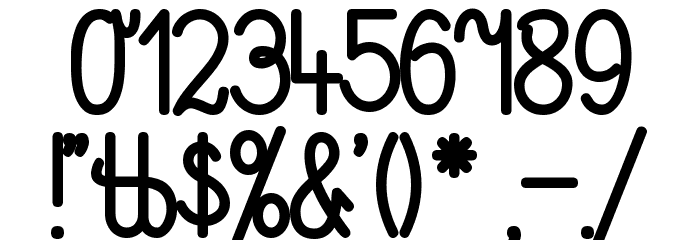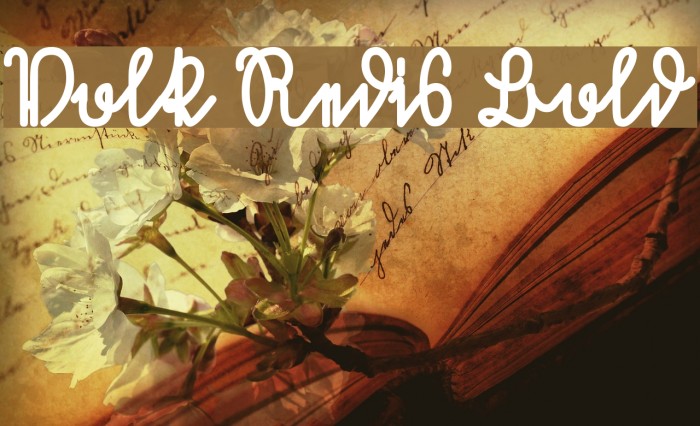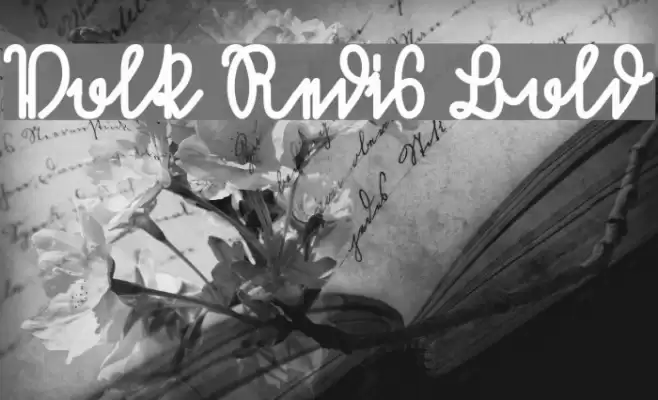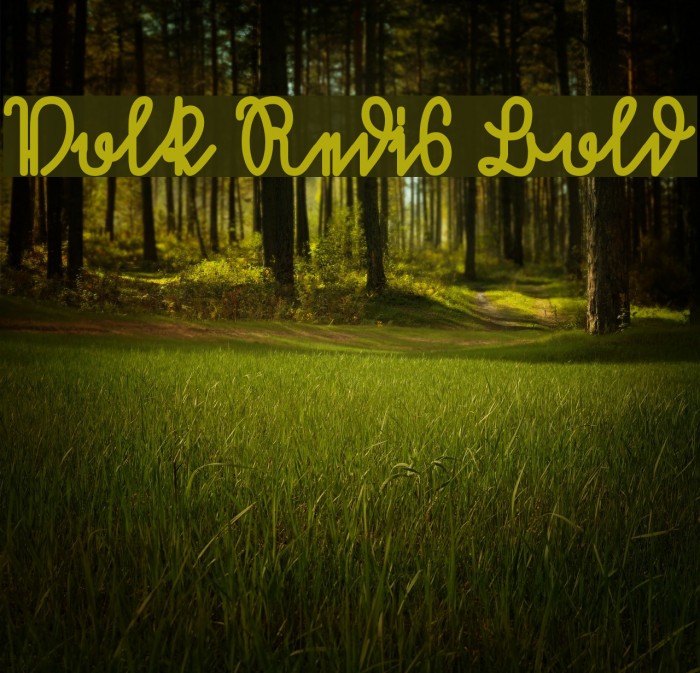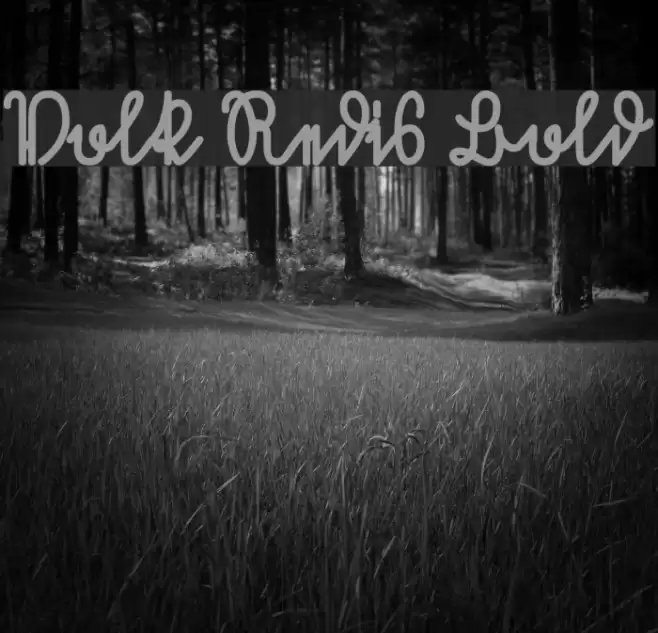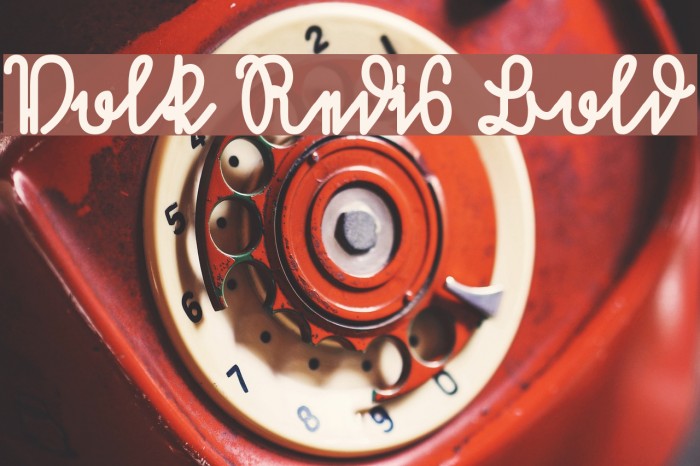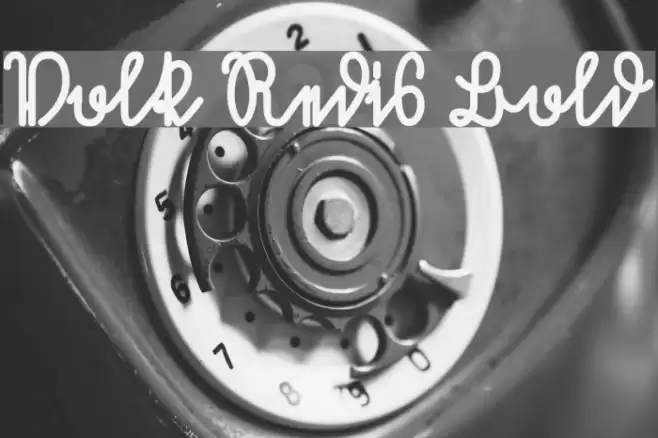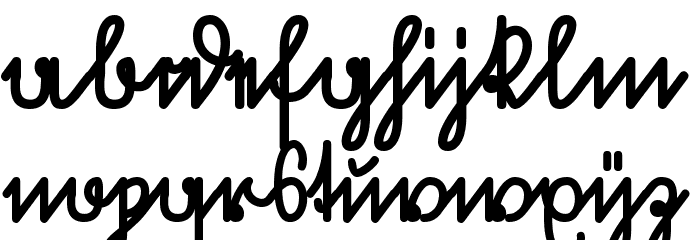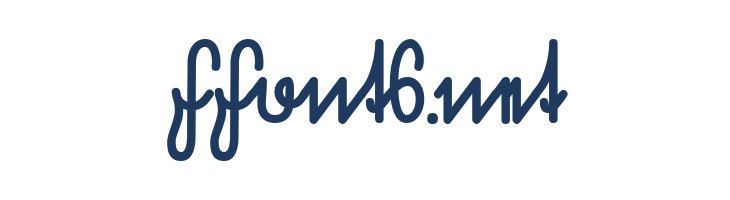
Volk Redis Bold Font
Volk Redis Bold Description
This font features a bold, cursive style with a playful and energetic appearance. The characters are interconnected with smooth, flowing lines, creating a sense of movement and continuity. The uppercase letters maintain a consistent height, while the lowercase letters exhibit a slight slant, enhancing the dynamic feel. The numbers and special characters are designed to match the overall aesthetic, with rounded edges and a cohesive flow. The font's boldness ensures high visibility, making it suitable for eye-catching designs.